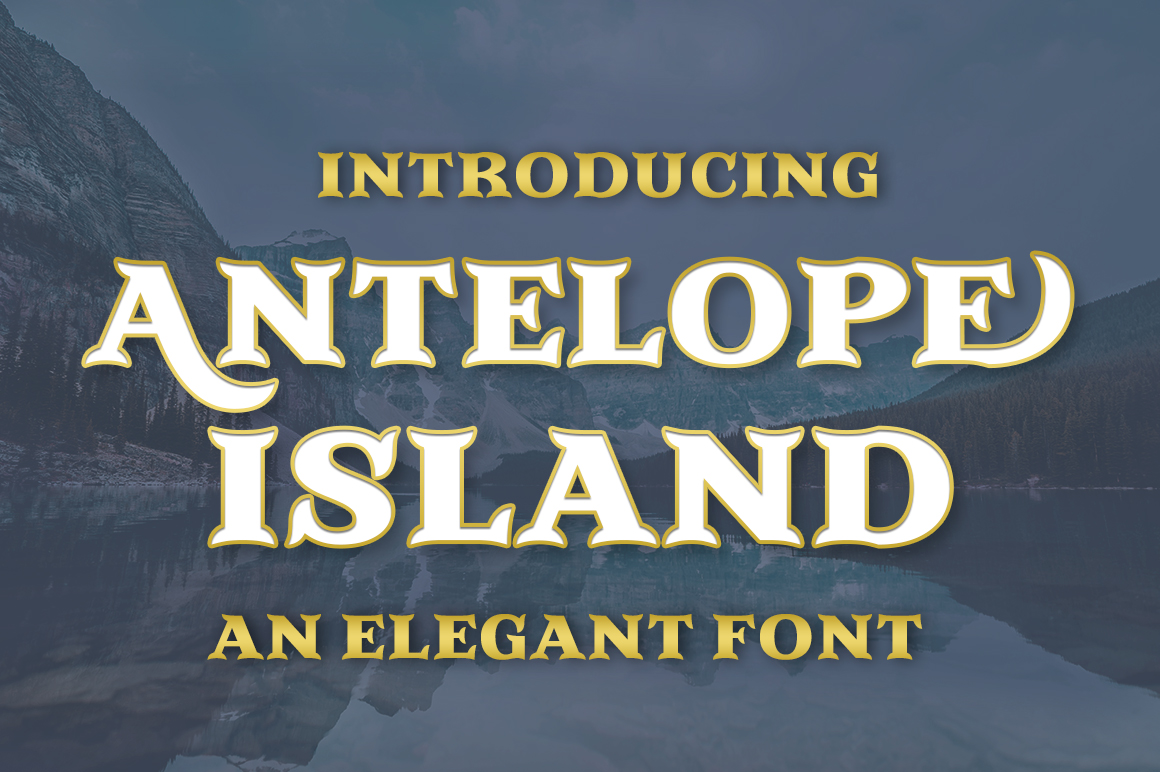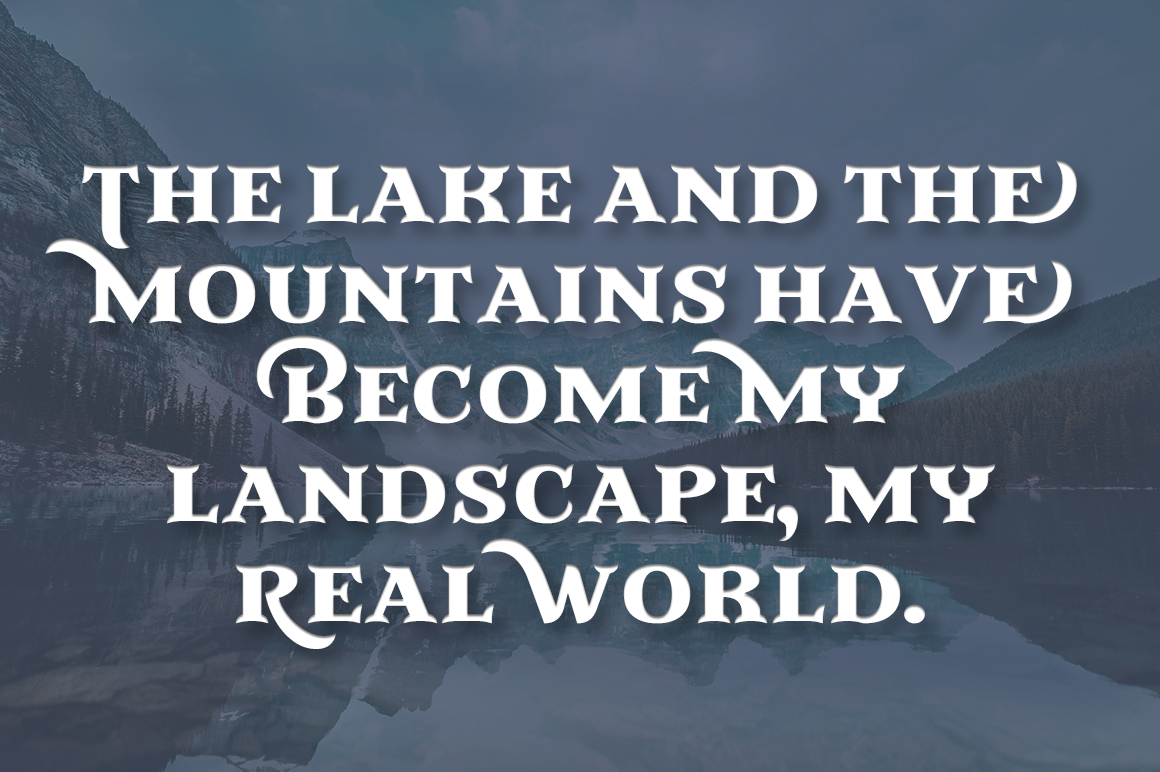
Antelope Island Font
About the Antelope Island Font
Explore the possibilities with Antelope Island Font, a font that offers both beauty and functionality. Antelope Island is a beautifully classic serif font, ideal for giving your designs a touch of classicism and brevity. This font looks great in print, and can be used in a wide range of projects.
Antelope Island’s elegant serif forms shine in headlines, short paragraphs, and branding applications where a touch of classic sophistication is desired. It works particularly well for logos, letterheads, and short-form marketing materials. However, its refined strokes are less suited to body text or UI elements requiring high legibility at smaller sizes.
The font’s personality is undeniably refined and elegant, conveying a sense of timeless quality and understated luxury. It would be a strong choice for brands in the luxury goods, fashion, or publishing sectors.
Pairing Antelope Island with a clean sans-serif like Montserrat for body copy provides excellent contrast and readability. For a more playful feel, consider pairing it with a handwritten script font like Pacifico, while a geometric sans-serif like Futura would create a modern and sophisticated combination.
Antelope Island Font Usage Examples
Antelope Island Font Example